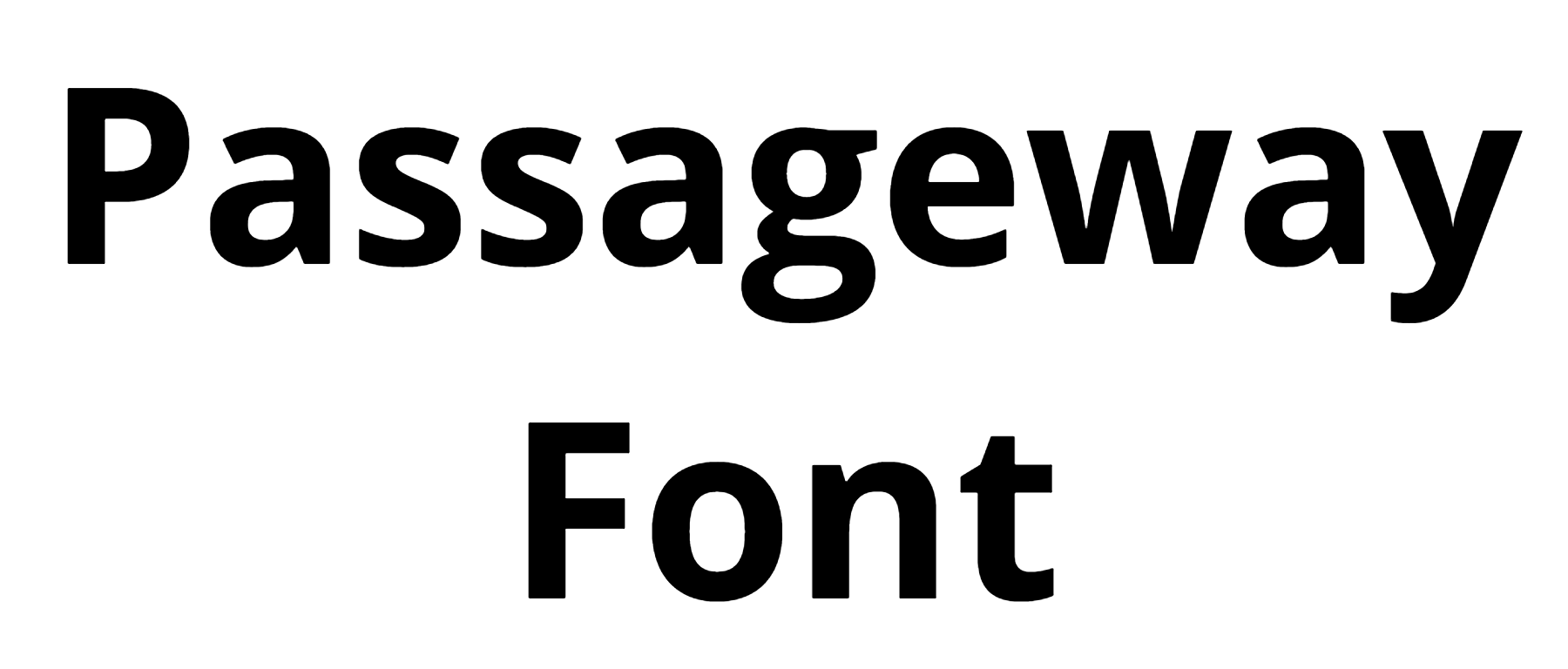
Passageway
Passageway is a sans serif font designed by Ascender Corporation (2015). Its clean letters skip the little "feet" (serifs) of traditional type, so it looks modern and reads well on screens. The free download includes seven styles, and you can try every one of them with your own text in the preview above.
What You Can Type With Passageway
Passageway covers the full alphabet in upper and lowercase, plus all ten numbers, so you can set names, dates and prices without switching fonts. Common punctuation such as &, !, ? and @ is included as well. It also has the accented letters you need for Spanish, French, German, Portuguese and Italian. On top of that, it includes Greek and Cyrillic characters.
Where Passageway Works Best
Designers usually reach for fonts like Passageway when they're making websites, app screens and clean logos. Its lowercase letters are tall compared to the capitals, which keeps it readable at smaller sizes. It works for headings and body text alike. If the download has several weights, use a heavier one for titles and a lighter one for paragraphs. Because the family has more than one style, you can mix them in a single design for headings, subheadings and highlights.
Who designed Passageway font?
Does Passageway support accented letters?
Yes. Passageway includes the accented letters needed for Spanish, French, German, Portuguese and Italian, so it works for more than just English.